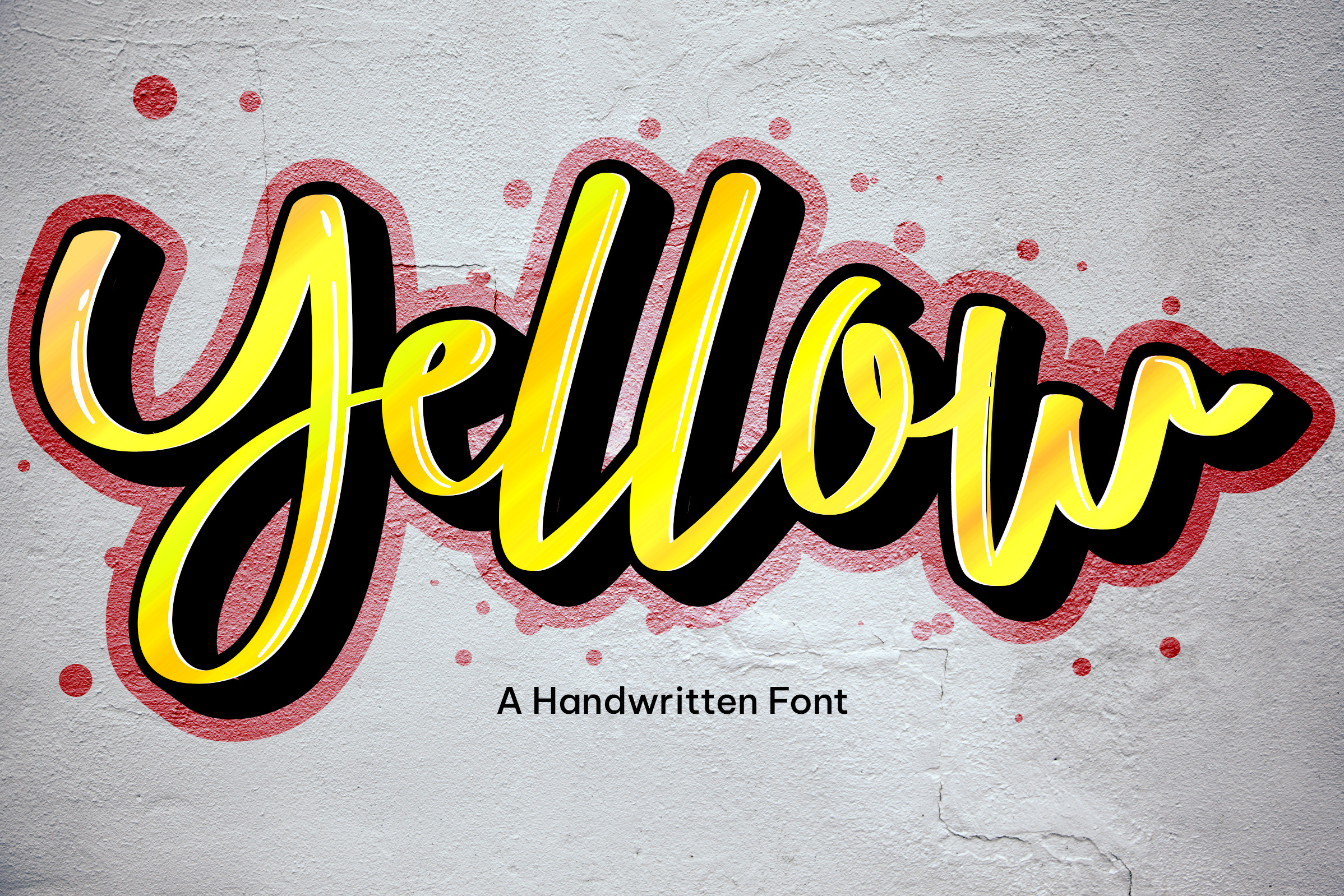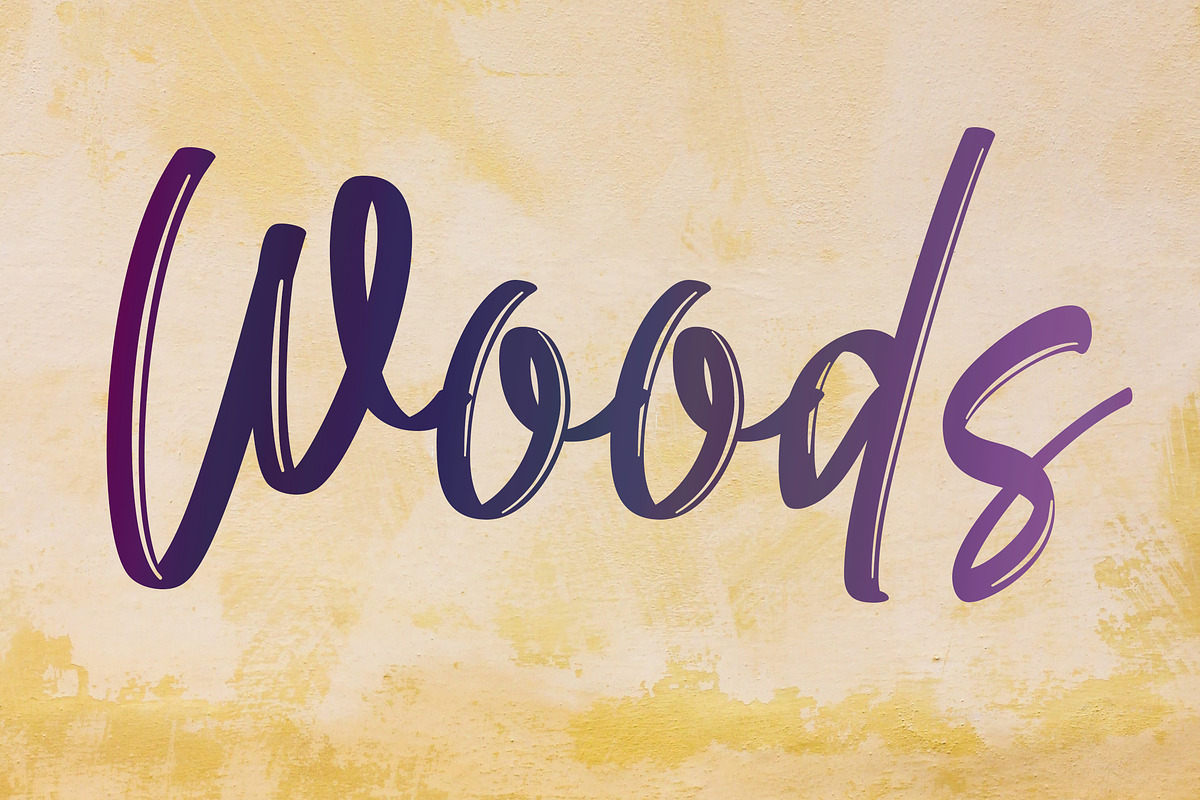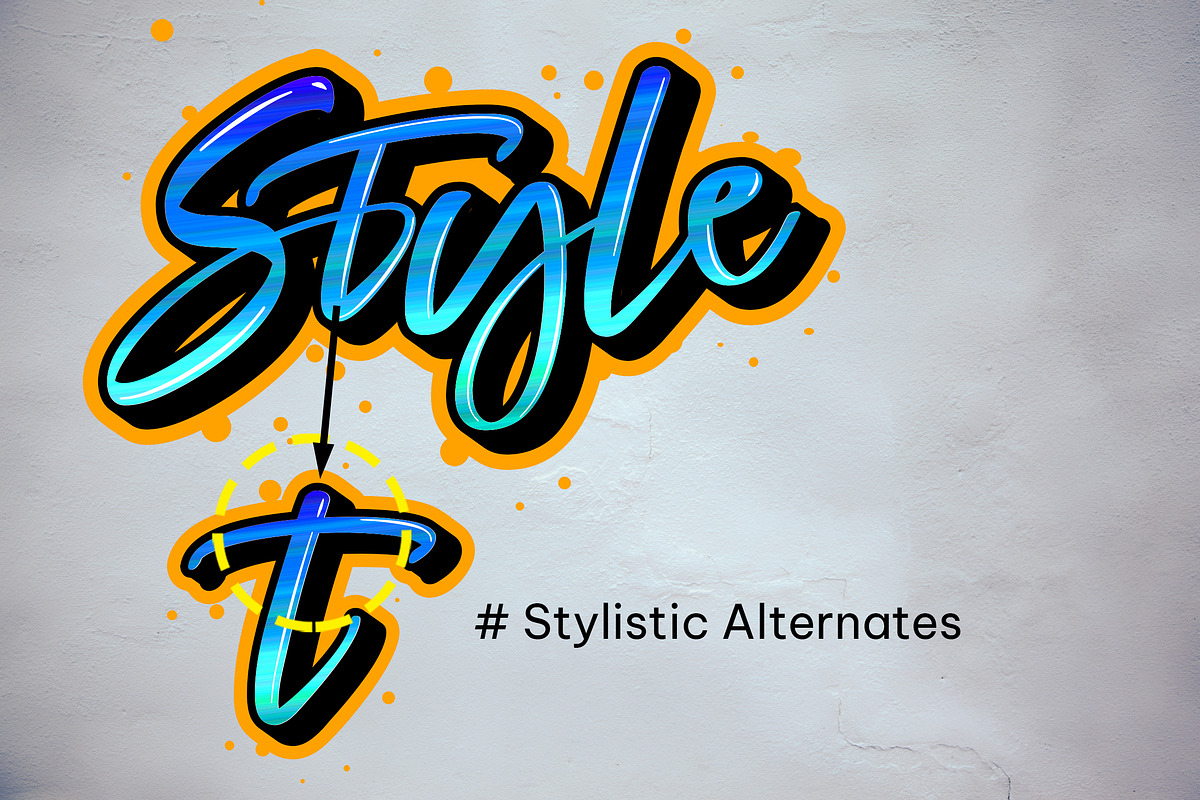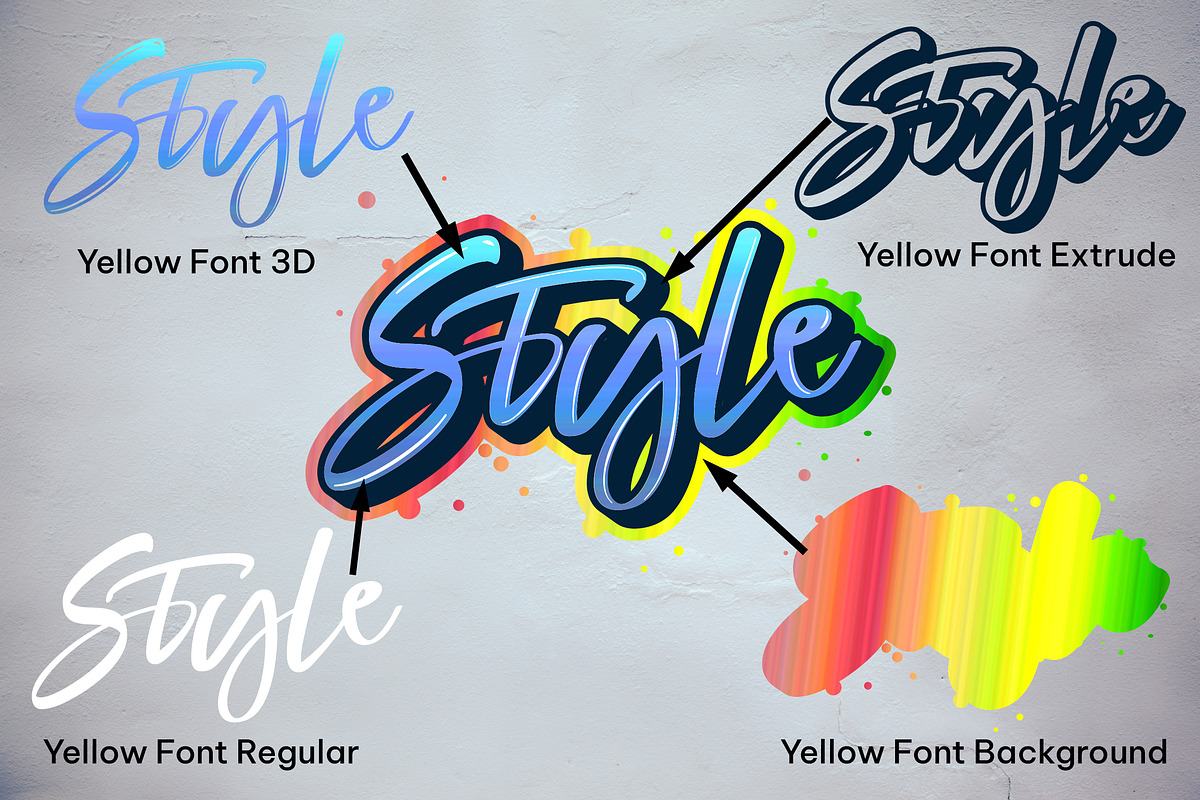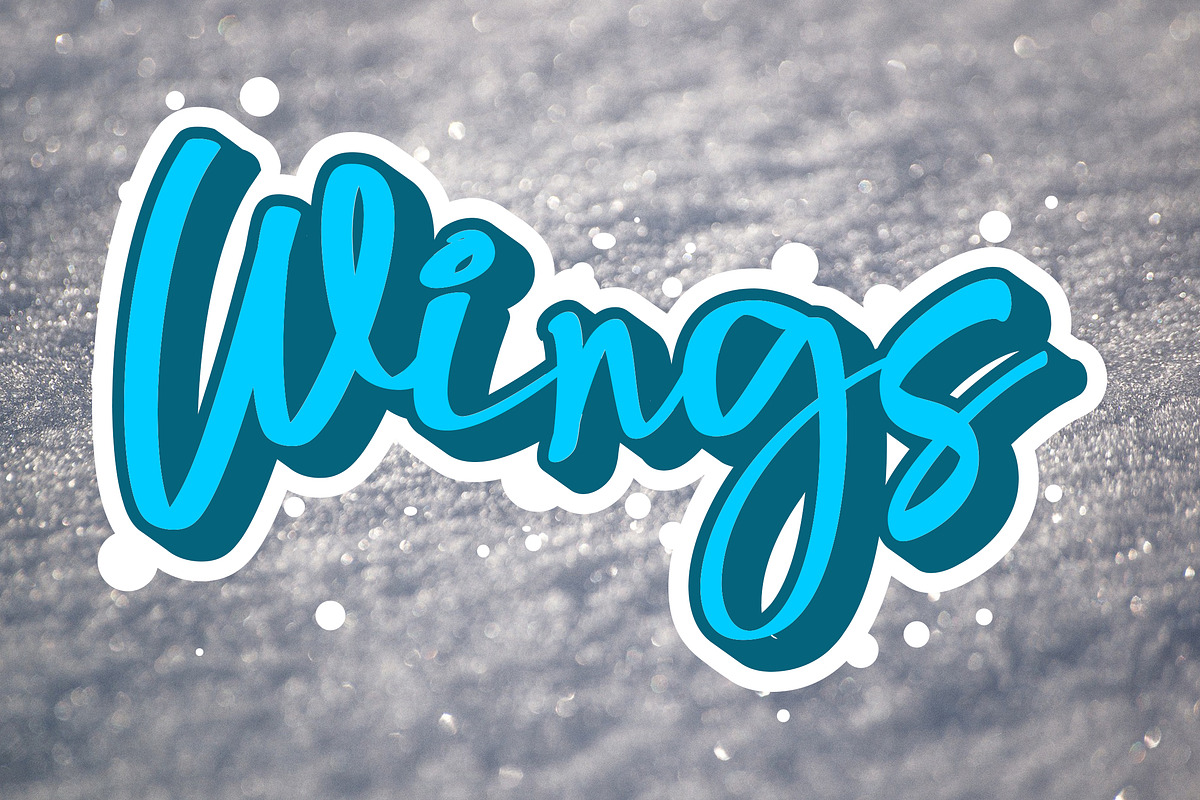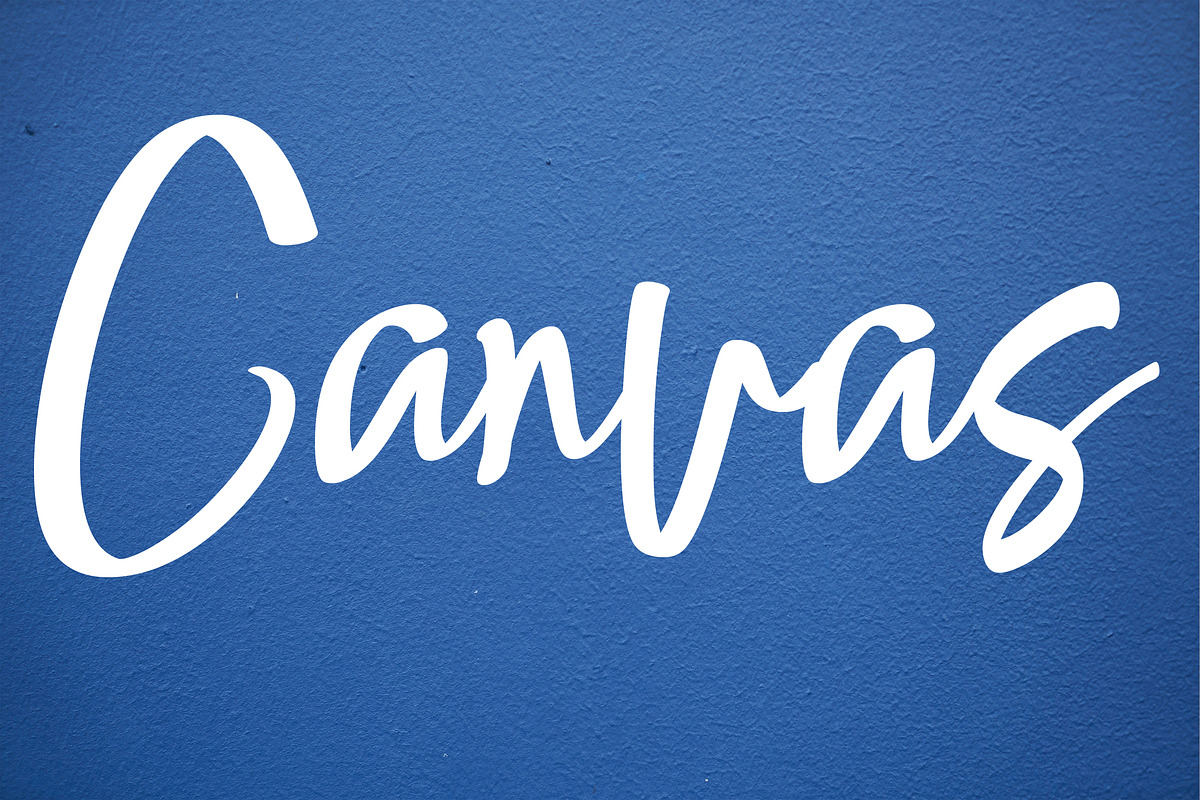
Yellow font
Yellow is a fun handwritten font with a unique style. Fall in love with its incredibly versatile style and use it to create spectacular designs. Add to your most creative ideas and create stunning designs with it! (please type the preview to see if I have what you need)